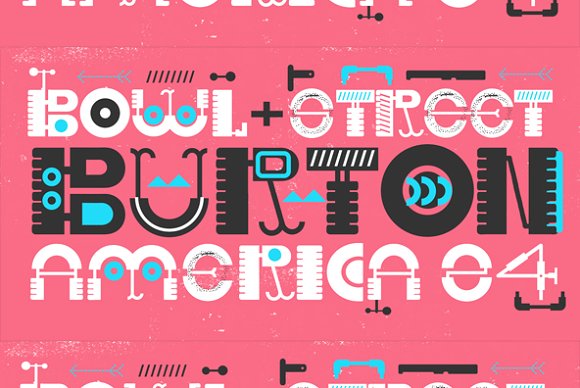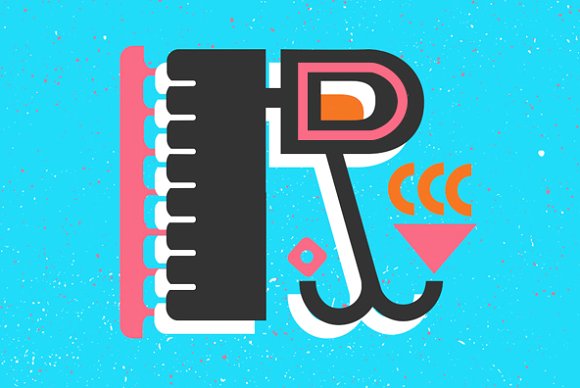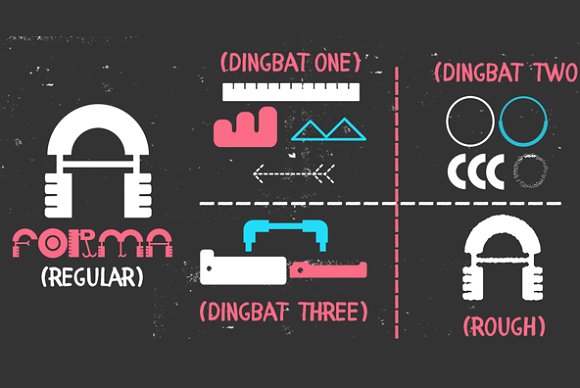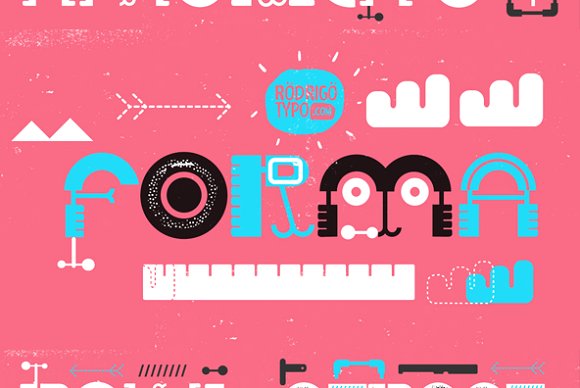
The Quest for the Perfect Font: Discovering Forma
I still remember the frustration of working on a design project, hours spent searching for the ideal font that would bring my vision to life. My client wanted something unique, something that would stand out from the crowd, but not be too over-the-top. As I scrolled through font after font, I felt like I was stuck in a never-ending loop of bland, generic options. That was until I stumbled upon Forma Font by Rodrigo Araya Salas.
A Game-Changing Experimental Typeface
Forma is not your average font. This experimental typeface is a fascinating blend of different materials such as plastic, wood, metal, and more. The result is a truly unique and eye-catching font that adds a touch of industrial chic to any design project. The Forma font family includes a regular version, as well as three variants that can be used to decorate the letters, giving designers a wide range of creative possibilities.
An Honest Review: What I Love and What I Don’t
The Good: ✨
- Unique and eye-catching design ✅
- Mix of different materials adds an industrial touch 💡
- Regular and three variant versions offer flexibility 🌈
- Perfect for designers looking to add a creative twist to their projects 🎨
The Not-So-Good: 🤔
- May not be suitable for body text due to its decorative nature ⚠️
- Some users may find the font a bit tricky to read at small sizes 📚
The Story Behind Forma: Designer Inspiration
Rodrigo Araya Salas, the mastermind behind Forma, drew inspiration from the mix of industrial materials and textures found in modern architecture and product design. His goal was to create a font that would reflect the complexity and diversity of the modern world, while still being easy to read and understand.
Q: What makes Forma unique?
A: Forma’s uniqueness comes from its blend of different materials such as plastic, wood, and metal, giving it an industrial and eye-catching look.
Q: Can I use Forma for body text?
A: While Forma is primarily designed for headlines and titles, it can be used for short paragraphs of body text. However, its decorative nature might make it less suitable for longer texts.
Q: Is Forma suitable for digital use?
A: Yes, Forma can be used in digital designs, such as websites, social media graphics, and presentations. Its unique style will add a creative touch to your digital content.
Q: Are there any limitations to using Forma?
A: Some users might find Forma a bit tricky to read at small sizes, and it may not support all OpenType features in certain software applications.